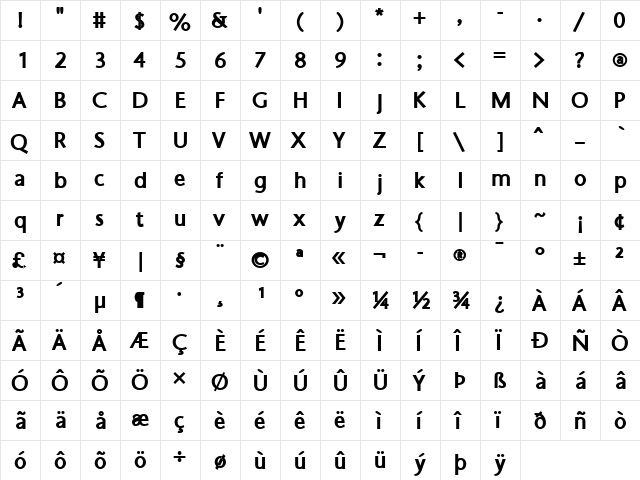
Aboriginal Sans Bold
| Foundry | Chris Harvey |
| Designer | Chris Harvey |
Design Context for Aboriginal Sans Typeface
Aboriginal Sans takes a measured approach to typography — its balanced proportions and neutral character make it a reliable workhorse for both digital and print work. Its bold stroke weight gives it real presence on the page.